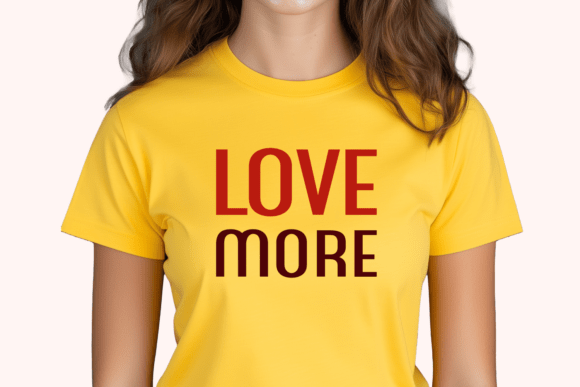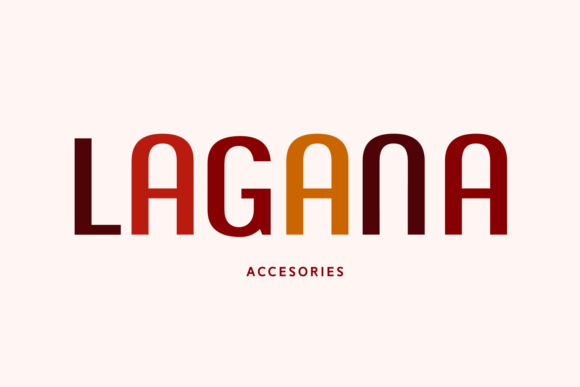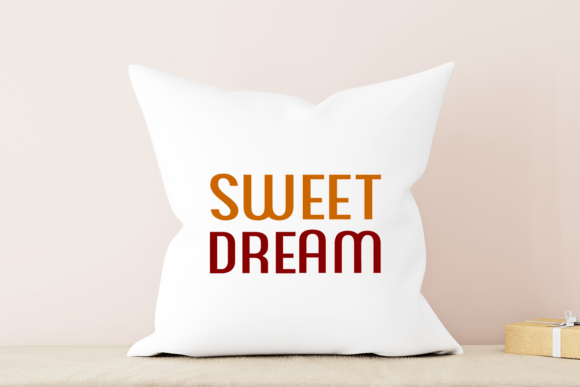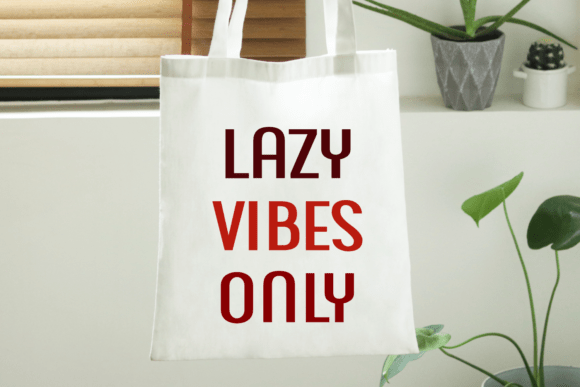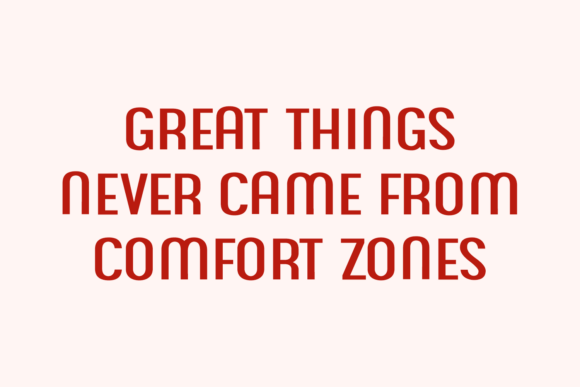
Introducing Cuan Font: The Bold and Modern Sans Serif for Your Creative Projects
In the world of typography, a font can make or break a design. It’s the foundation upon which your creative vision is built, and choosing the right one can be a daunting task. If you’re looking for a bold, modern, and versatile sans serif font, look no further than Cuan Font. With its clean lines and sleek appeal, Cuan is sure to turn heads and leave a lasting impression on your audience.
What Makes Cuan Font So Special?
Cuan Font is a bold sans serif font that boasts a modern aesthetic, making it perfect for a wide range of creative projects. Its clean lines and minimalist design ensure that your message is conveyed with clarity and precision, while its bold nature demands attention. Whether you’re working on a logo, branding materials, or social media graphics, Cuan Font is the perfect choice.
Endless Possibilities: Where to Use Cuan Font
One of the best things about Cuan Font is its incredible versatility. Its bold and modern design makes it suitable for a vast array of projects, including:
- Logos: Create a lasting impression with a bold and memorable logo that showcases your brand’s personality.
- Shirts and Apparel: Add a touch of modern style to your t-shirts, hoodies, and other apparel with Cuan Font.
- Branding and Packaging: Elevate your brand’s visual identity with Cuan Font’s sleek and sophisticated design.
- Quotes and Social Media Graphics: Make your quotes and social media graphics stand out with Cuan Font’s bold and eye-catching style.
- Crafts and Stickers: Add a modern touch to your crafts, stickers, and other DIY projects with Cuan Font.
Why Choose Cuan Font?
- Unique and Memorable: Cuan Font’s bold and modern design ensures that your project will stand out from the crowd.
- Versatile: Cuan Font can be used for a wide range of projects, from logos and branding to social media graphics and crafts.
- Easy to Read: Despite its bold nature, Cuan Font remains easy to read, making it perfect for body text and captions.
- High-Quality: Cuan Font is a high-quality font that is designed to deliver exceptional results.
Tips for Using Cuan Font Effectively
To get the most out of Cuan Font, here are a few tips to keep in mind:
- Use it Boldly: Cuan Font is designed to be bold and eye-catching, so don’t be afraid to use it in large sizes.
- Pair it with Other Fonts: Cuan Font pairs well with a variety of other fonts, so experiment with different combinations to find the perfect look.
- Experiment with Colors: Cuan Font looks great in a variety of colors, so don’t be afraid to try out different options.
In conclusion, Cuan Font is a bold and modern sans serif font that is perfect for a wide range of creative projects. Its clean lines, sleek appeal, and versatility make it an excellent choice for designers and crafters alike. Whether you’re working on a logo, branding materials, or social media graphics, Cuan Font is sure to deliver exceptional results. So why wait? Give Cuan Font a try today and see the difference it can make in your designs!